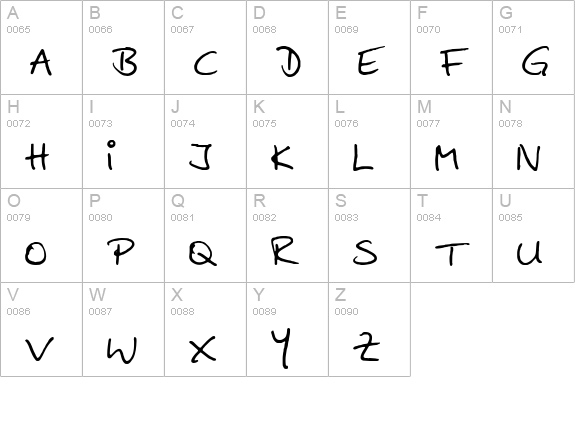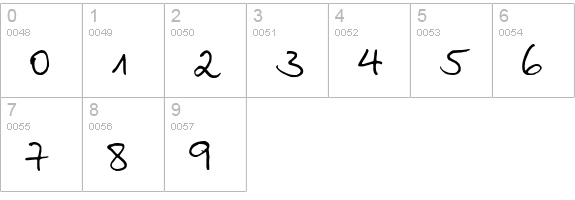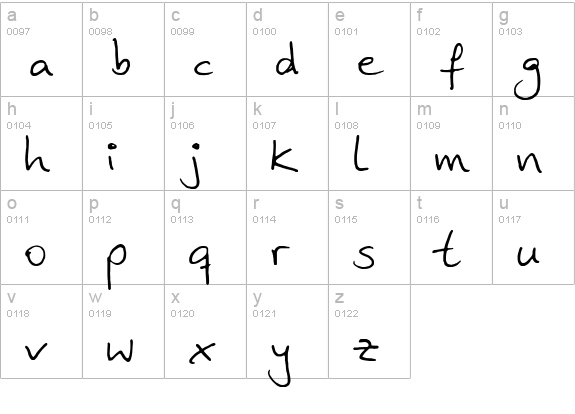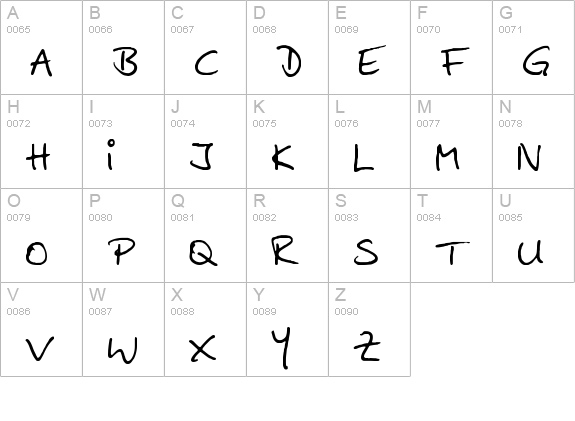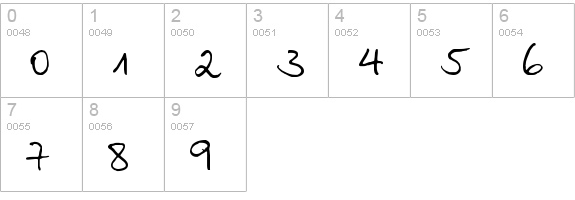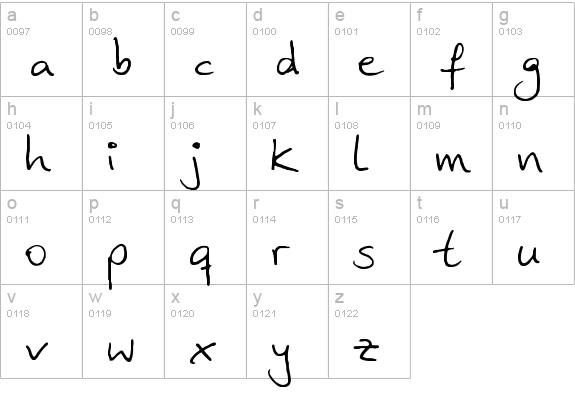
AnkeHand Font Details
Introducing AnkeHand font, a whimsical and playful typeface perfect for adding a touch of charm to your projects. This delightful handwritten font features a unique and quirky style that is sure to stand out. AnkeHand is versatile and can be used for a variety of design projects, from invitations to logos to social media graphics. The best part? AnkeHand font is completely free to download at FontsMarket.com. This means you can easily access this fun and creative font to elevate your designs without breaking the bank. Don't miss out on the opportunity to add a touch of personality to your projects with the charming AnkeHand font. Download it today and let your creativity shine!